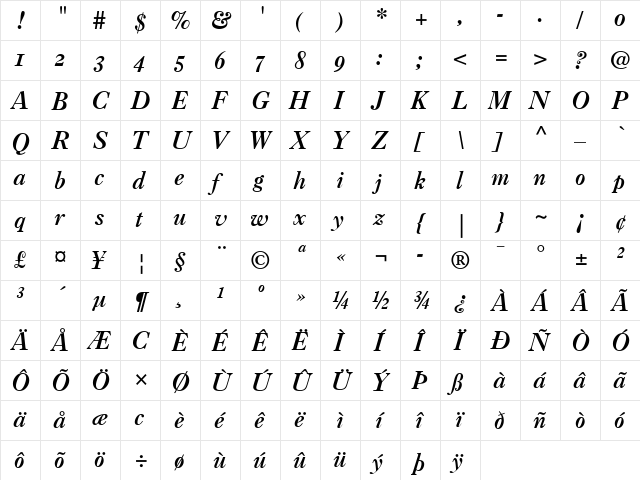
Caslon 3 RomanSC Italic
Design Context for Caslon 3 RomanSC Typeface
Caslon 3 RomanSC is a composed and adaptable typeface that performs quietly and consistently across a wide range of design contexts. The slanted form adds forward momentum and visual energy.
Pro Tip: Try Caslon 3 RomanSC for annotation and caption copy alongside an upright companion — the contrast in angle creates a dynamic but ordered typographic system.